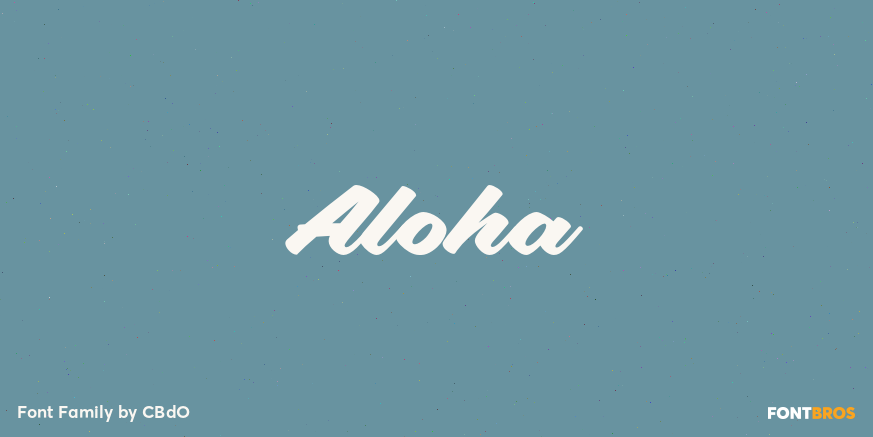
Aloha
Aloha! Veteran Sign Painter Pierre Tardif and Lettering Artist Charles Borges de Oliveria have teamed up to bring you these fun to use brush fonts. Aloha Script comes in two flavors, Aloha Script and Aloha Script Casual. Both fonts contain the same lowercase,…